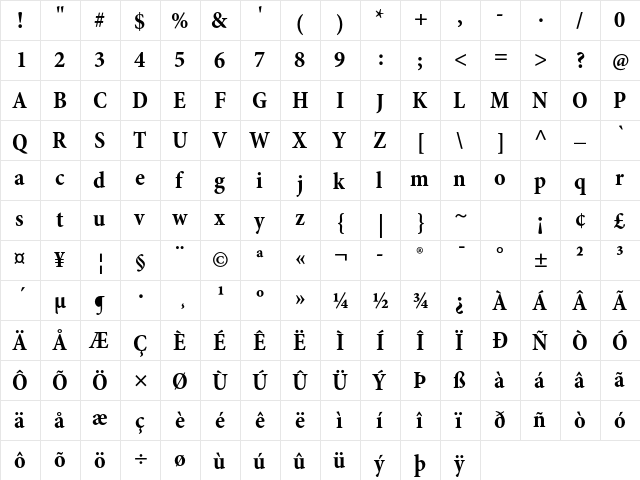
Minion Pro Bold Cond
| Designer | Robert Slimbach |
Design Context for Minion Pro Typeface
Minion Pro takes a measured approach to typography — its balanced proportions and neutral character make it a reliable workhorse for both digital and print work. Its bold stroke weight gives it real presence on the page. The condensed width makes it efficient for tight spaces without sacrificing legibility.